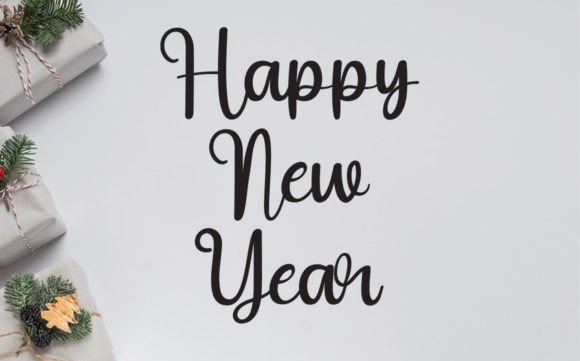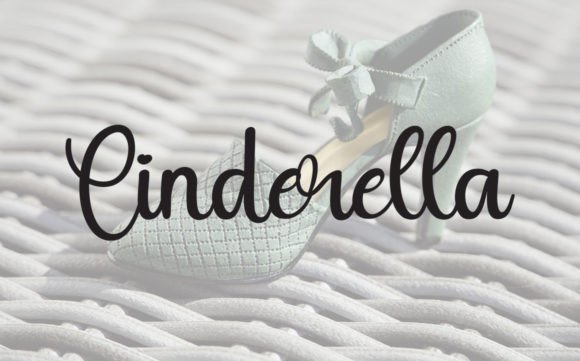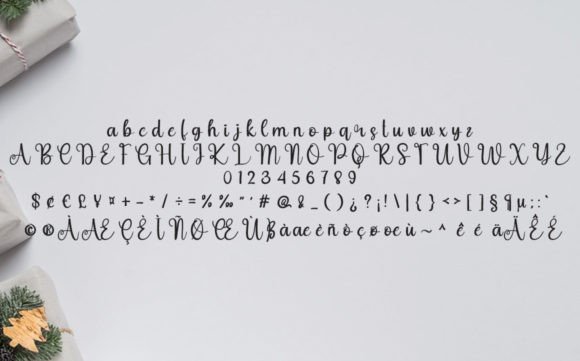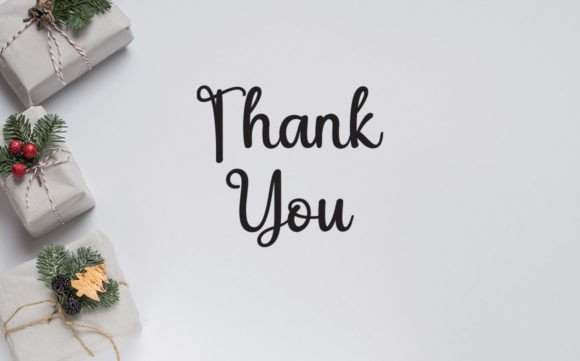
Decking the Halls with Holiday Style
It’s that magical time of the year when creativity knows no bounds. You’re browsing through Pinterest, and suddenly, you stumble upon a beautifully designed holiday card that catches your eye. The elegant script, the delicate ornaments, and the soft colors all come together to create a truly festive atmosphere. You can almost hear the sound of sleigh bells and feel the warmth of the fireplace. In that moment, you know exactly what you want to create – something that captures the essence of the season.
| 👤 Author | Garcio |
Enter Christmas Font, a beautiful handwritten font that embodies the spirit of the holiday season. This font is perfect for adding a touch of whimsy and romance to your projects, from wedding invitations to social media post logos. Its delicate flow and elegant script make it a valuable addition to any designer’s toolkit.
Key Features of Christmas Font
- Font Family: A festive and playful font family designed specifically for the holiday season.
- Unique Characteristics: The Christmas Font features intricate holiday-themed ornaments, festive icons, and playful lettering, making it an ideal choice for holiday-themed designs, greeting cards, and party invitations.
Christmas Font Review
✨ The Christmas Font is a delightful addition to any holiday-themed project. Its playful, cursive design perfectly captures the spirit of the season. The font’s use of festive colors and ornaments adds a touch of whimsy, making it ideal for designs that require a sense of fun and joy.
✨ The font is also highly customizable, with a range of styles and sizes available. This allows designers to tailor the font to suit their specific needs, from headings to body text. The font’s flexibility makes it a great choice for projects that require a mix of formal and informal elements.
⚠️ One of the main limitations of the Christmas Font is its lack of versatility outside of the holiday season. While it’s perfect for Christmas-themed designs, it may not be the best choice for projects that require a more neutral or year-round font.
⚠️ Additionally, the font’s ornamented design can sometimes be overwhelming or distracting, particularly in smaller sizes or when used extensively throughout a design.
In conclusion, the Christmas Font is a charming and festive addition to any holiday-themed project. While it may have some limitations, its playful design and high customizability make it a great choice for designers looking to add a touch of holiday cheer to their work.
- Playful, cursive design
- Festive colors and ornaments
- Range of styles and sizes available
Tips for Getting the Most Out of Christmas Font
Use Christmas Font to add a festive touch to your holiday designs. Experiment with different font sizes and colors to create a cohesive look. You can also combine Christmas Font with other holiday graphics and images to create a visually appealing design.
Christmas Font is perfect for holiday-themed designs such as:
- Holiday cards and invitations
- Christmas party flyers and posters
- Winter-themed social media posts
- Gift tags and wrapping paper